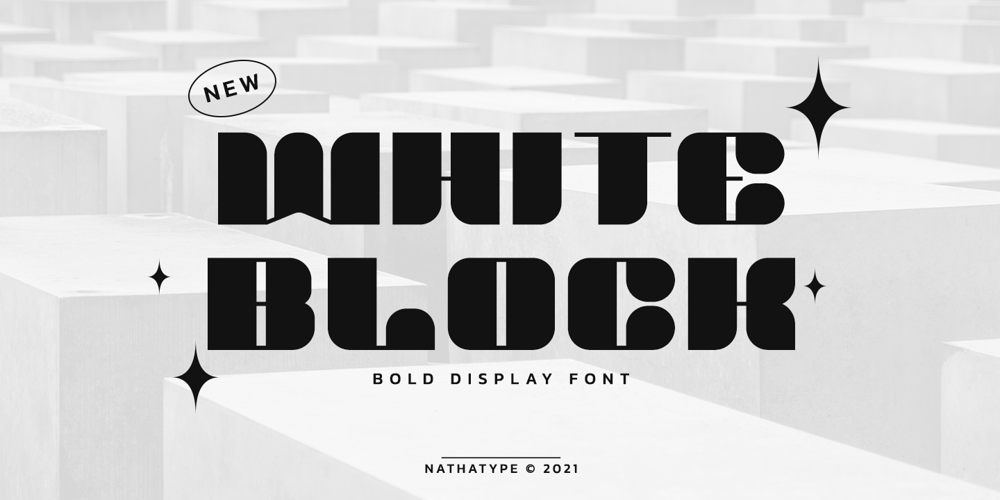
White Block
White Block font
White Block Font Family was designed by Donis Miftahudin and published by Nathatype. White Block contains 1 styles and family package options. Looking for a font that will make your branding stand out? Do you sometimes have an appetite for a bit more wholesome typography? Looking for a fabulous, stylish, and adventure font? We’ve got what you want.White Block-A Display FontWhite Block is a bold display font with a modern look. This display font is perfect for anything adventurous, and direct. Designed primarily as a captivating font that easy to read but still stylish, A real head-turner for your presentation, designs, branding, quotes, invitation, website illustrations, and much more.Our font always includes Multilingual Options to make your branding globally acceptable. Features: PUA Encoded Numerals and Punctuation Thank you for downloading premium fonts from Natha Studio